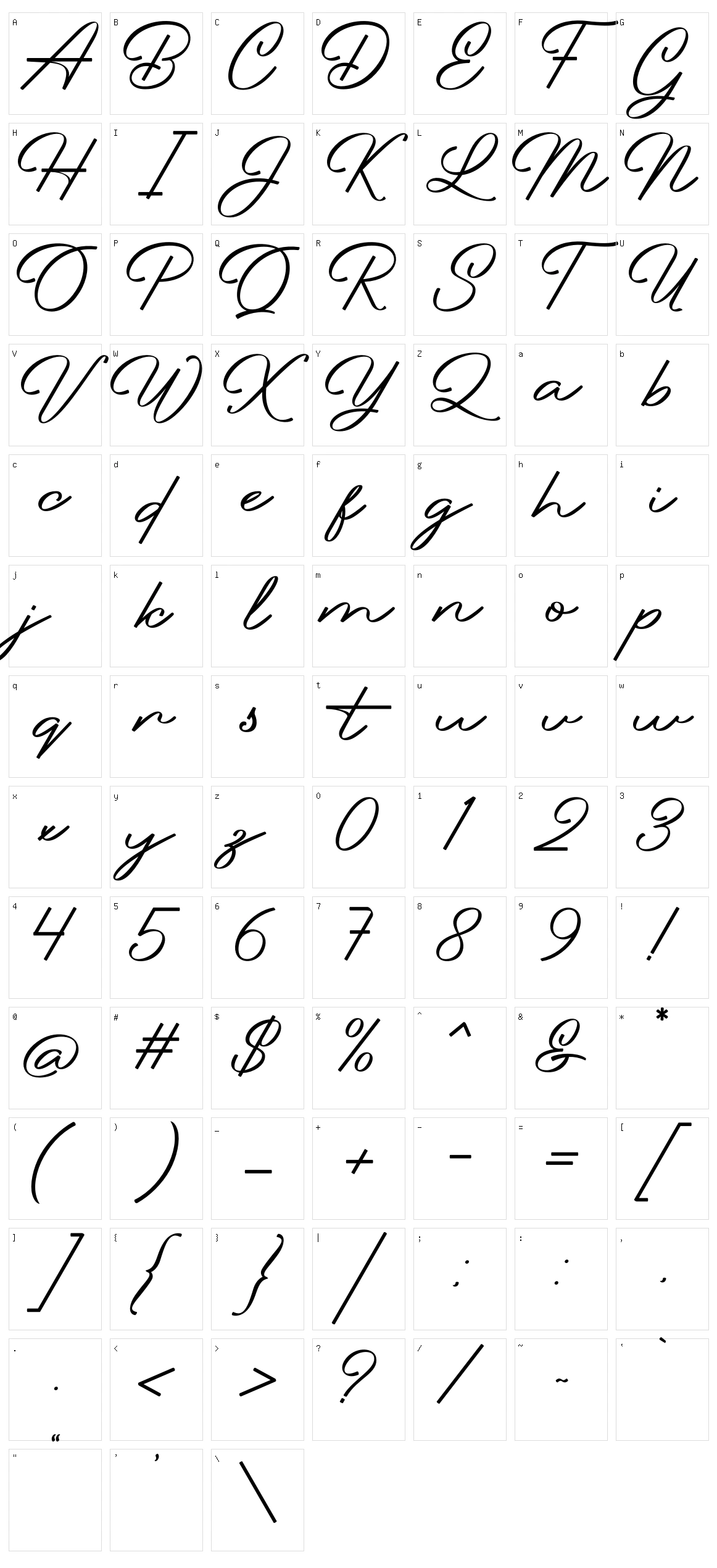
Waiting Awakmu is a classy handwritten font, This is a truly versatile font combining sophisticated, casual and even fun sides depending on the style you use.